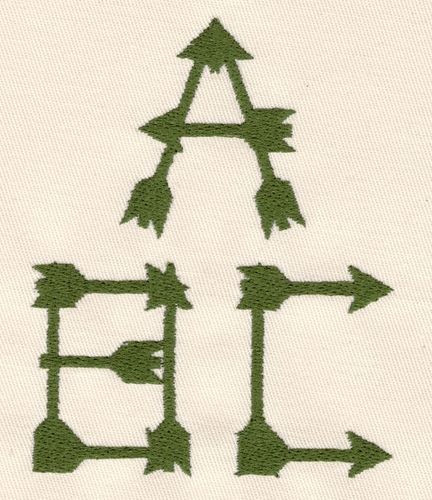
268 Archery Font
Archery Font comes in 2", 3" and 4" heights; features uppercase letters, numbers and four punctuations composed of arrows. Also includes the capital letters A, B, C, D, E, M, N, O, Q, U, W and X composed of Bows and or targets as shown in the character photo above. All designs in all sizes are fill stitch. On the letters made out of bows the string is floss stitch.